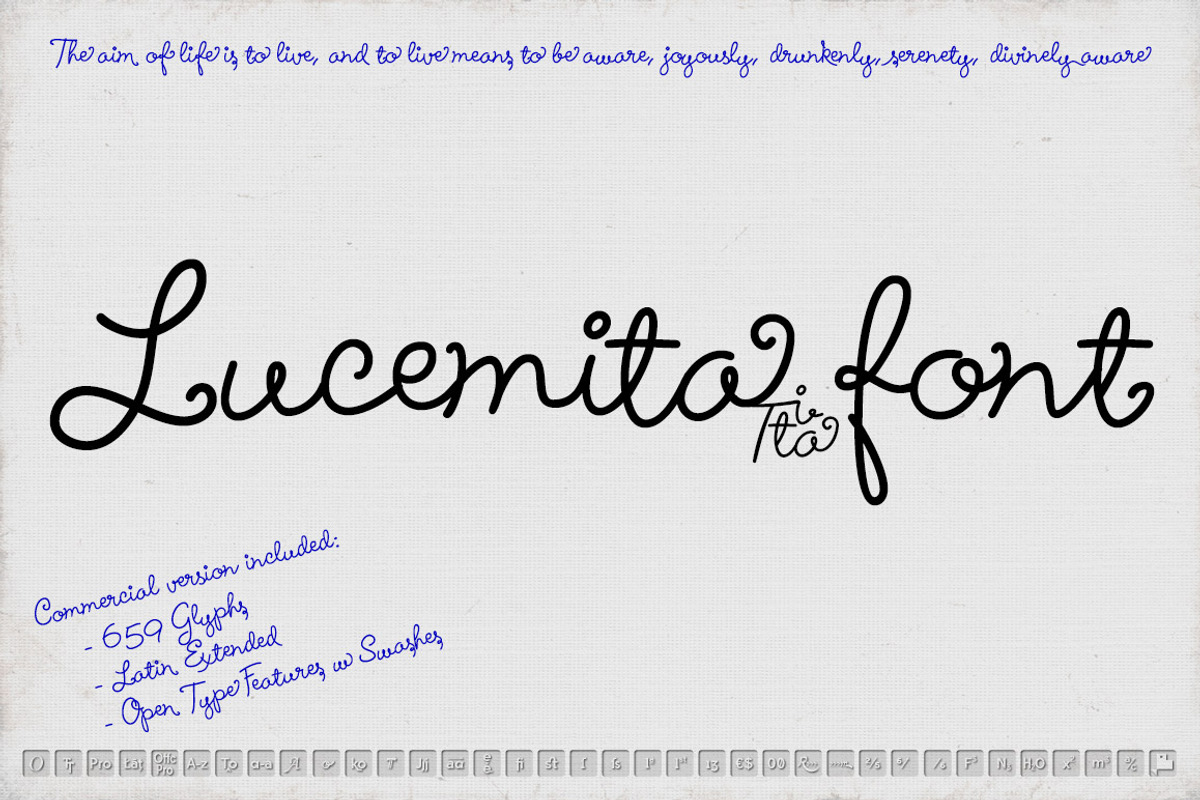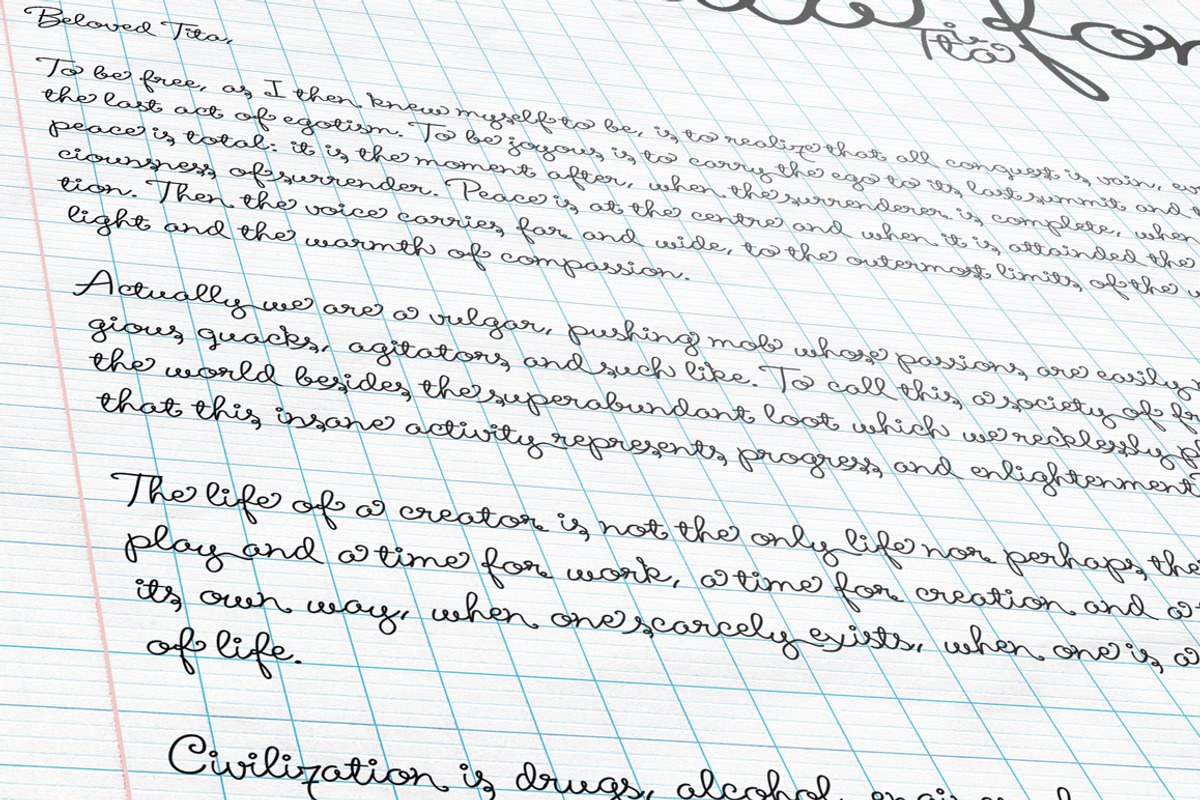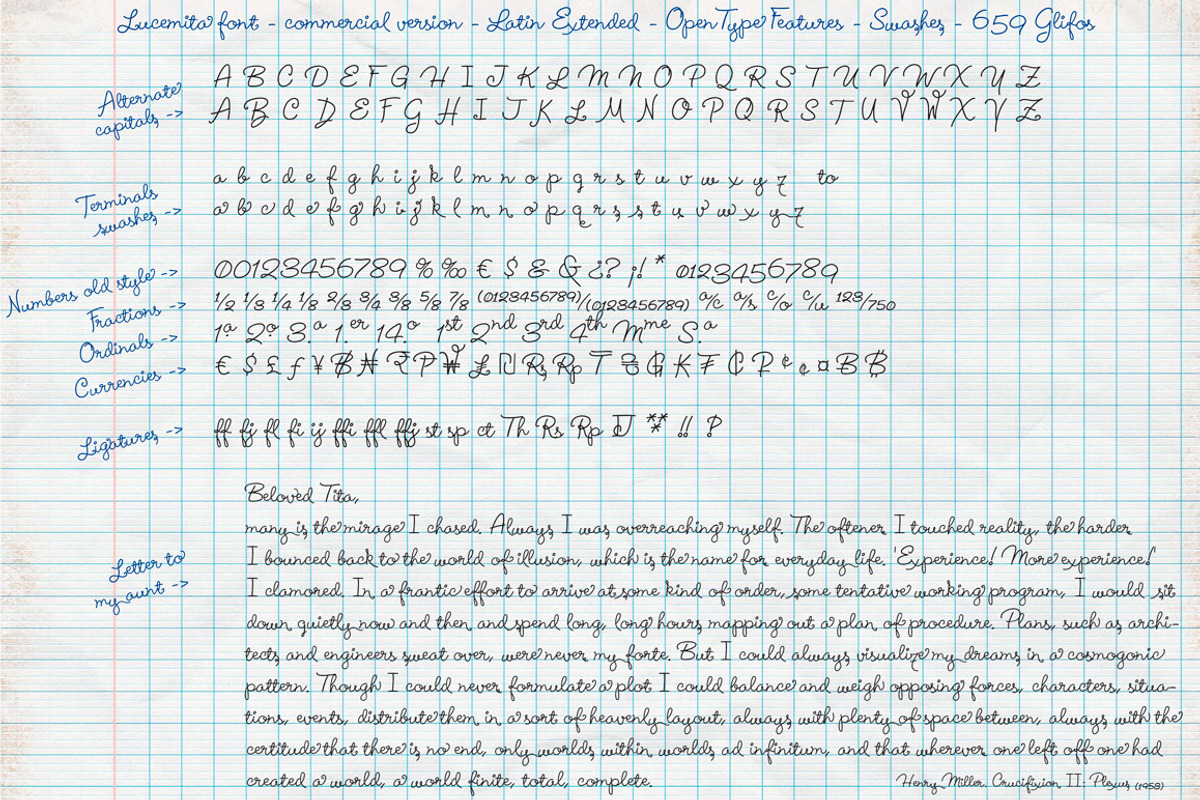
Lucemita font
Lucemita font by deFharo is a font selected for branding, posters, packaging, typography.
- This handwritten font contains several additional character sets for aesthetic purposes such as alternative capital letters to start words o
- OpenType features: Alternate characters • Numbers old style • Ligatures • Fractions • Currencies • Denominators • Numerators • Swashes • Sla
Why Lucemita font is worth a look
Lucemita font by deFharo fits naturally into Branding, posters, packaging, typography.